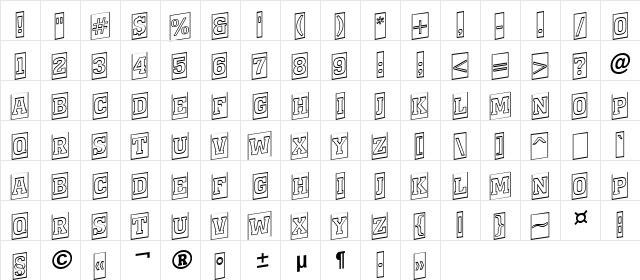
a_MonumentoTtlCmOtlUp Regular Font Preview
a_MonumentoTtlCmOtlUp Regular
Design Context for a_MonumentoTtlCmOtlUp Typeface
a_MonumentoTtlCmOtlUp offers clean, dependable letterforms without strong stylistic allegiance, making it a practical choice for designers who need flexibility.